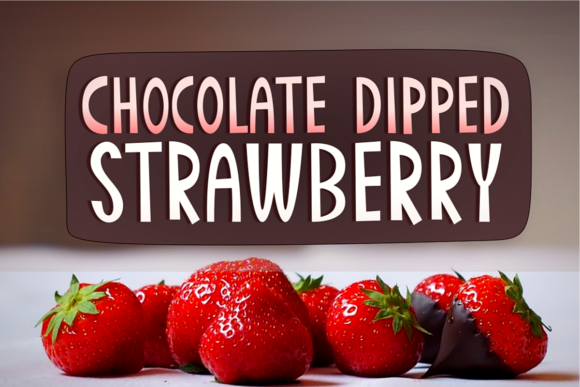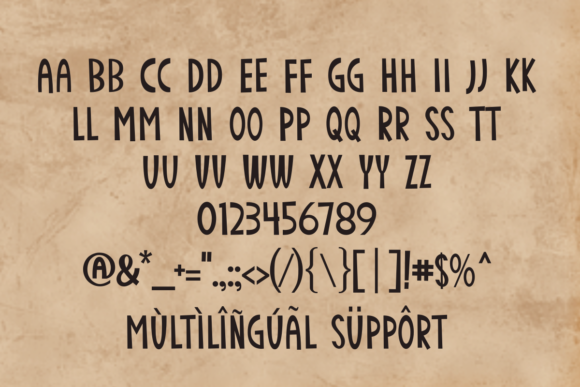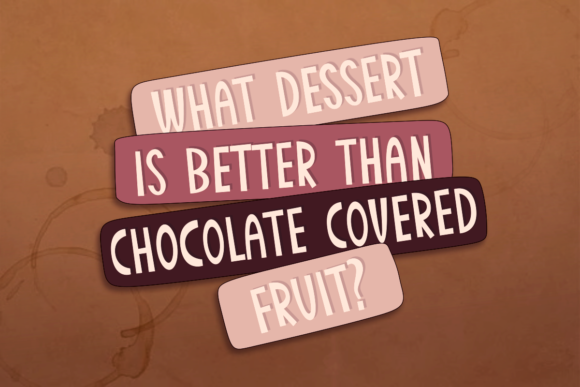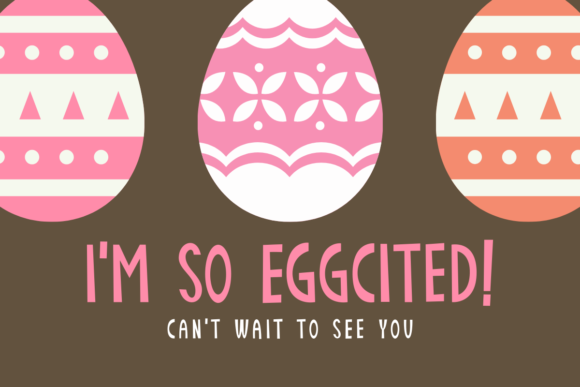
Chocolate Dipped Strawberry Font
About the Chocolate Dipped Strawberry Font
The Chocolate Dipped Strawberry Font offers a perfect balance of form and function for your design needs. Chocolate Dipped Strawberry is a simple and quirky display font. It fits a variety of design ideas, whether it’s product packaging, cartoons, comics and much more.
Chocolate Dipped Strawberry Font Usage Examples